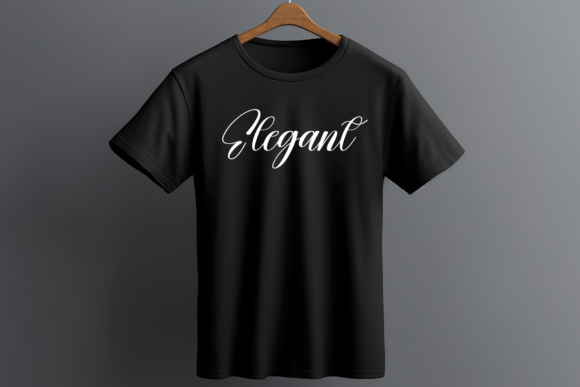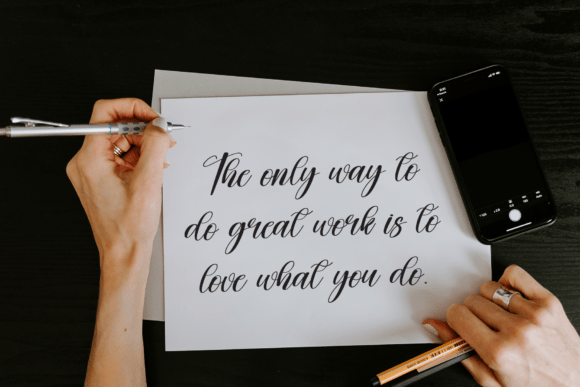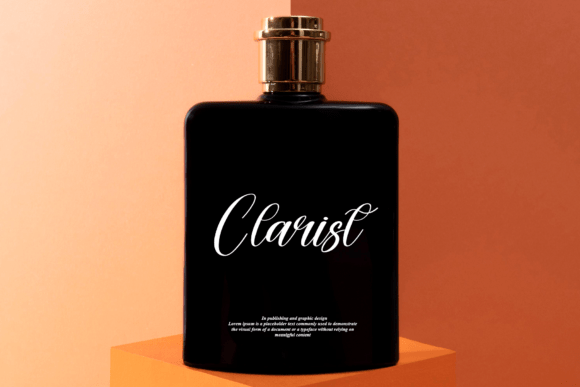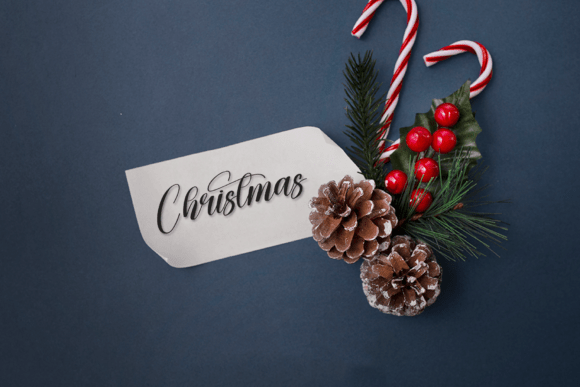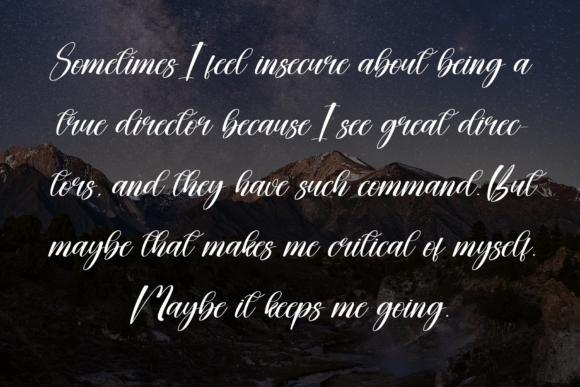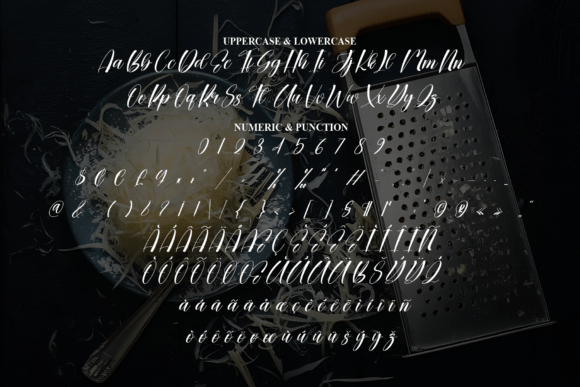
Introducing Grated Font: Elevate Your Design with Luxurious Calligraphy
Are you looking for a font that exudes sophistication and luxury? Look no further than Grated, a high-contrast script font that embodies the essence of upscale calligraphy. With its dramatic visual rhythm, thick downstrokes, and fine hairline connectors, Grated is the perfect addition to your design arsenal.
The Design Philosophy of Grated Font
Grated font is a masterful blend of traditional calligraphy and modern design. Its thick, grounded downstrokes provide a sense of stability, while the exceptionally fine, sweeping hairline connectors add a touch of elegance. The expansive, soaring flourishes on capital letters and long, elegant terminal swashes give the text a clean, signature-like quality that is hard to ignore.
Key Features of Grated Font
- High-contrast script font: Grated font features a dramatic contrast between thick and thin lines, creating a visually striking effect.
- Expansive flourishes: The capital letters boast expansive, soaring flourishes that add a touch of luxury to any design.
- Elegant terminal swashes: The long, elegant terminal swashes give the text a clean, signature-like quality.
- Thick, grounded downstrokes: The thick downstrokes provide a sense of stability and balance.
- Fine hairline connectors: The exceptionally fine hairline connectors add a touch of elegance and sophistication.
Use Cases for Grated Font
Grated font is an incredibly versatile font that can be used in a variety of design applications. Here are some ideal use cases:
- Upscale culinary branding: Grated font is perfect for high-end restaurants, food blogs, and culinary brands that want to convey a sense of luxury and sophistication.
- Professional signature watermarks: The elegant and refined design of Grated font makes it an excellent choice for professional signature watermarks.
- High-end editorial headers: Grated font is ideal for editorial headers, magazine titles, and other high-end publications that require a touch of luxury.
- Boutique lifestyle identities: The font’s sophisticated and elegant design makes it perfect for boutique lifestyle brands, such as fashion, beauty, and wellness.
Why Choose Grated Font?
With so many fonts available, why choose Grated? Here are a few compelling reasons:
- Unique and distinctive design: Grated font features a unique and distinctive design that will set your brand apart from the competition.
- High-quality typography: The font is meticulously crafted to ensure high-quality typography that will elevate your design.
- Versatile and adaptable: Grated font can be used in a variety of design applications, from print to digital.
- Elegant and sophisticated: The font’s elegant and sophisticated design will add a touch of luxury to any design.
In conclusion, Grated font is a sophisticated and high-contrast script font that is perfect for designers and crafters looking to add a touch of luxury to their designs. With its unique and distinctive design, high-quality typography, and versatility, Grated font is an excellent addition to any design arsenal. Whether you’re working on upscale culinary branding, professional signature watermarks, high-end editorial headers, or boutique lifestyle identities, Grated font is sure to impress.